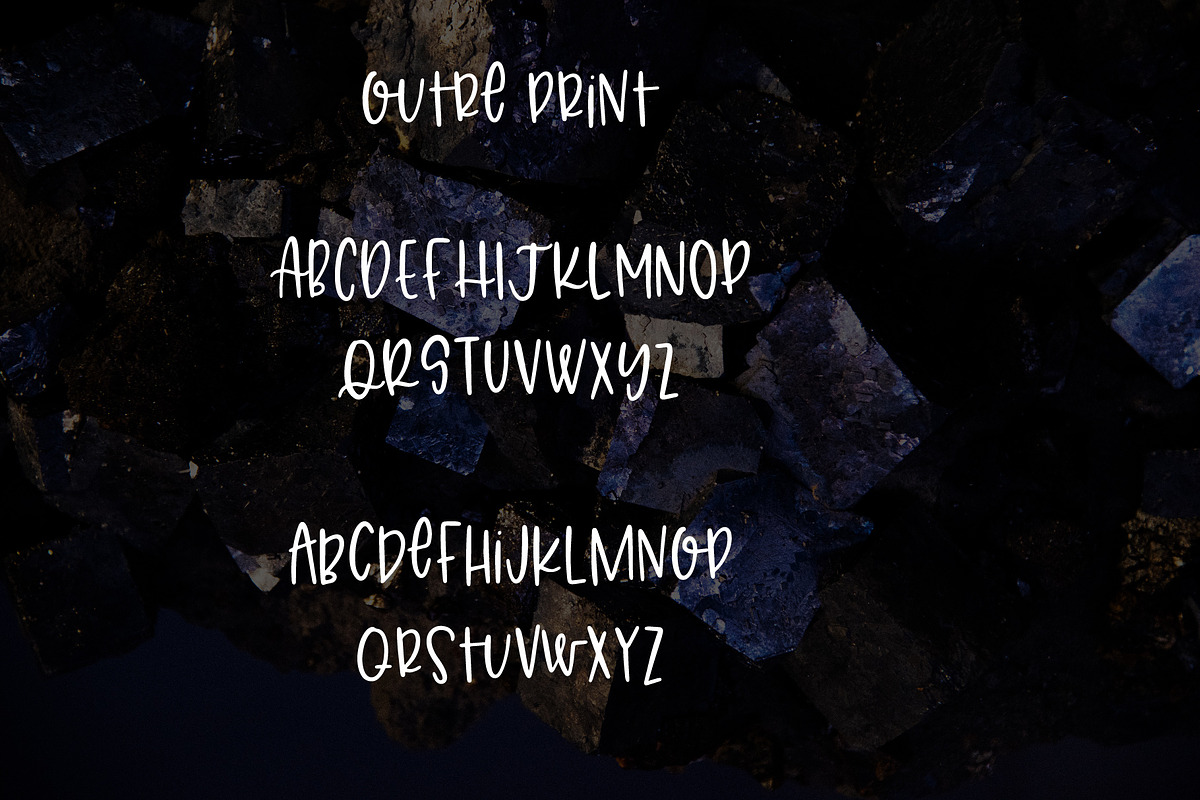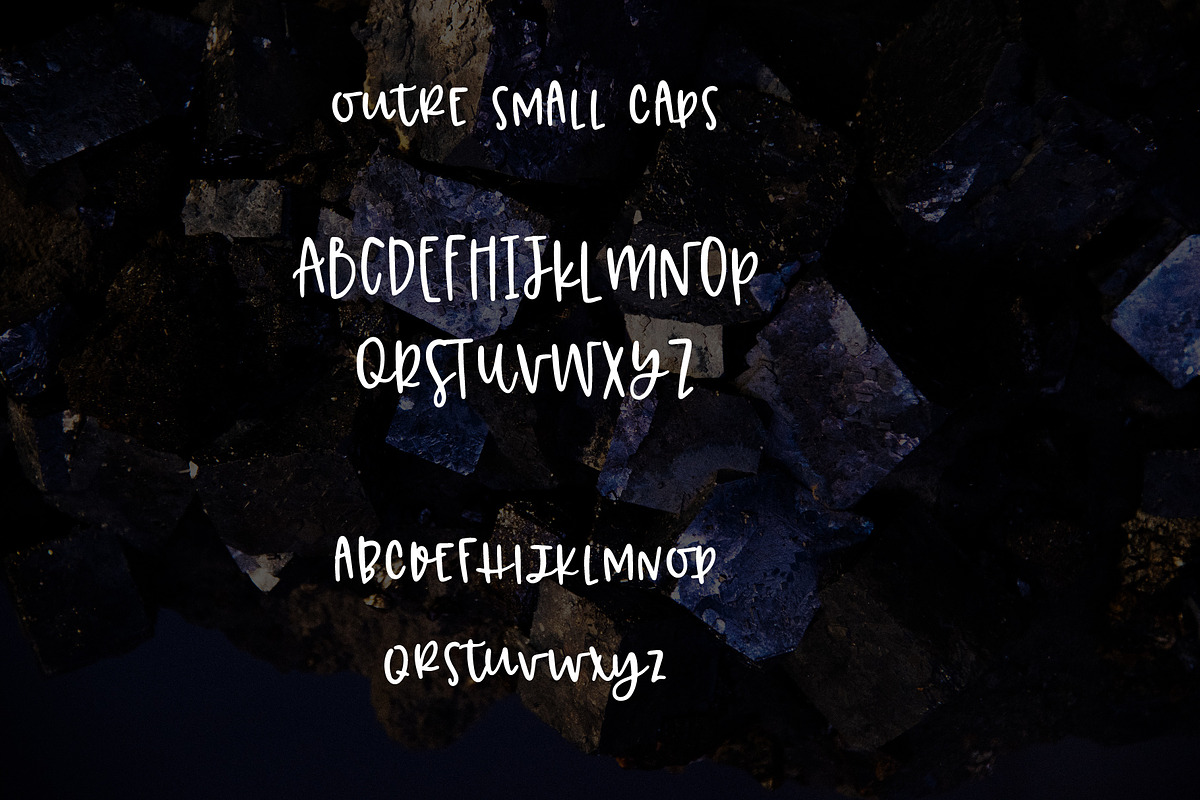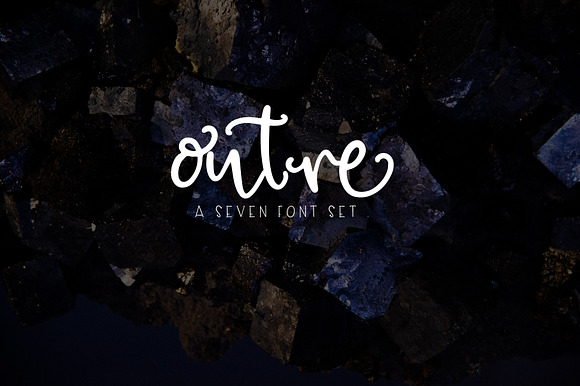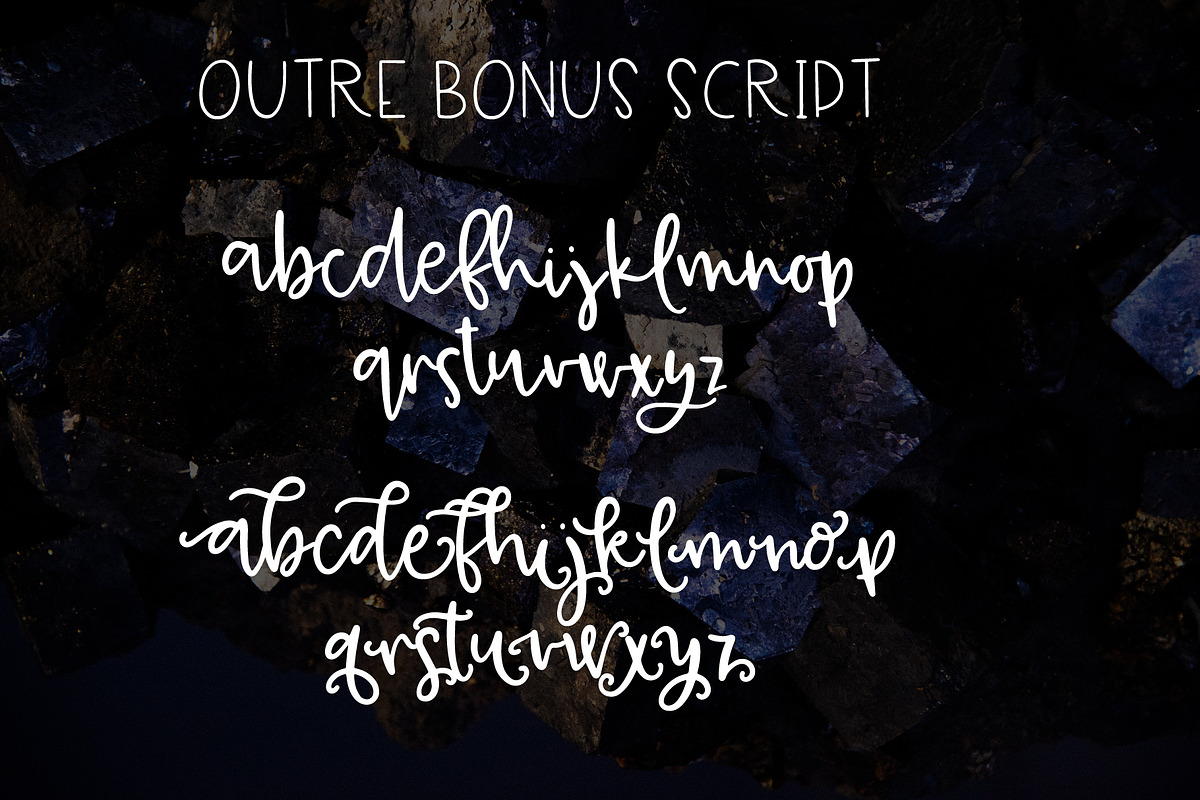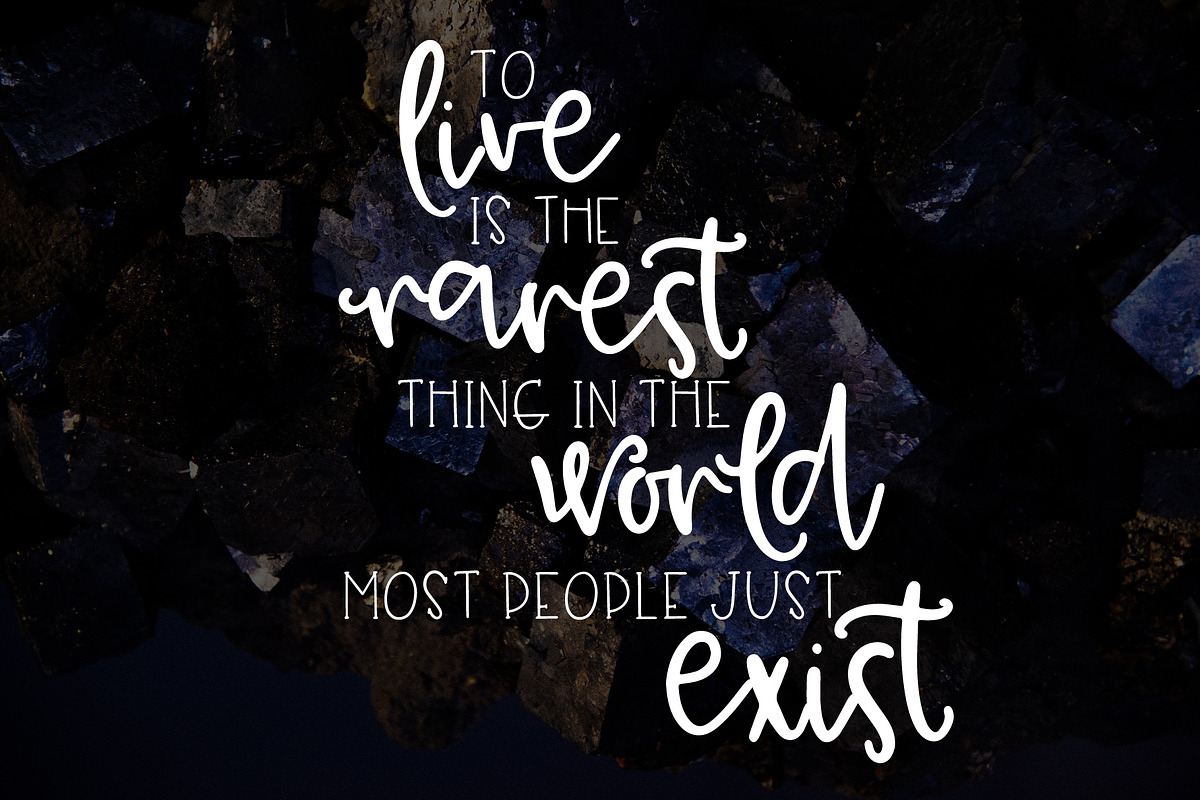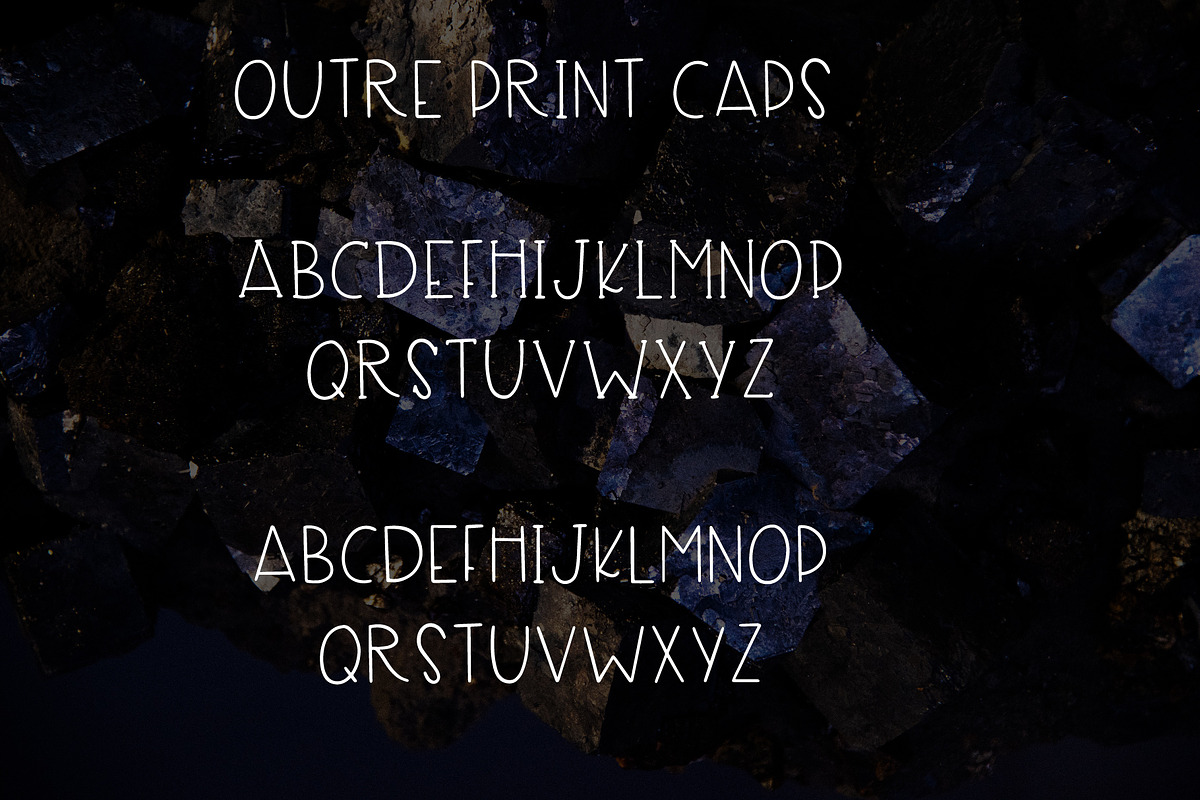
Outre - 7 Font Set
Outre is a 7 font lettering kit created by OTSS! Included are Outre Print Caps Serif and Sans Serif Uppercase Print Outre Bonus Script Includes a simple script as well as a bonus with beginners/ends Outre Print A Mixed Case print cursive style Outre Small Caps A bonus Mixed case print cursive style Mix and Match all of the Outre styles for a truly unique design!